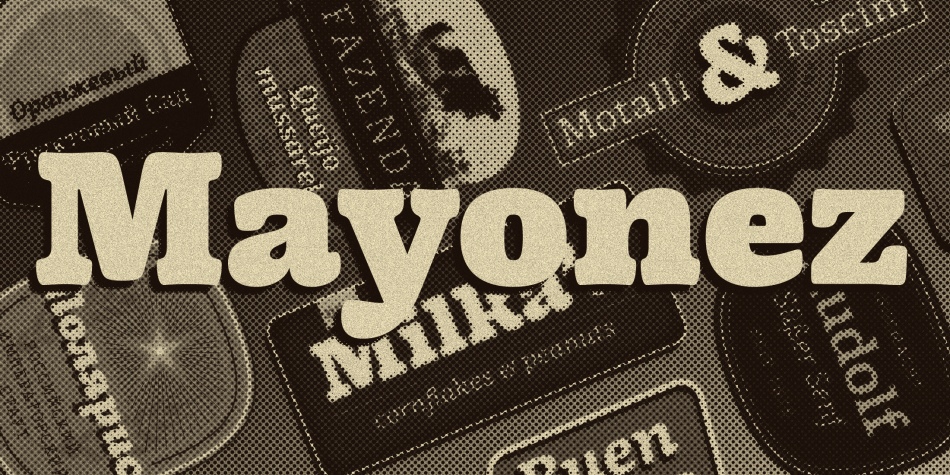
Mayonez Font
Mayonez Font is perfect for playful food branding, casual restaurant signage, fun condiment packaging, quirky café communications, lighthearted culinary marketing, cheerful kitchen accessories, whimsical food blog typography, and appetizing advertising campaigns. This delightful typeface works wonderfully in both digital applications and print media where food fun and culinary playfulness are essential design elements.
What makes Mayonez Font so exciting is its creamy interpretation of comfort food culture through smooth letterforms that seem spread with the same rich satisfaction and indulgent pleasure that defines the most beloved comfort food experiences. The font features smooth characters with creamy proportions, satisfying curves, and delicious details that create an immediate atmosphere of culinary comfort, food enjoyment, and the simple pleasures of good eating. Its satisfying personality and culinary inspiration make it ideal for brands seeking to communicate food fun, comfort dining, and the joyful indulgence of favorite flavors while appealing to audiences who appreciate the simple pleasures of delicious comfort food.
The Mayonez Font family includes multiple weight variations with different creaminess levels, along with smooth alternates and culinary ornamental elements. Each style maintains the typeface's satisfying character while offering comprehensive character sets including tasty numerals, food-focused punctuation marks, and special symbols designed to enhance culinary communications and comfort food branding efforts across various delicious contexts.
This extraordinary typeface represents the perfect marriage of comfort food culture and contemporary design functionality for food service and hospitality industries. Whether you're developing comfort food restaurant identities, creating casual dining materials, or designing food product campaigns, Mayonez Font Free Download provides the creamy satisfaction and versatility needed to connect with food-loving audiences. The font's comfort food appeal makes it particularly effective for casual restaurants, comfort food brands, kitchen accessory companies, and businesses celebrating the simple joy and satisfying pleasure of delicious comfort food experiences.
The carefully crafted smooth details and optimized culinary performance in Mayonez Font ensure both food authenticity and clear communication across all dining applications. Its satisfying presence makes it perfect for comfort food branding, culinary marketing materials, and delicious communications where its full creamy character can create mouth-watering connections with audiences seeking the comfort, satisfaction, and pure enjoyment that comes from indulging in their favorite comfort foods.